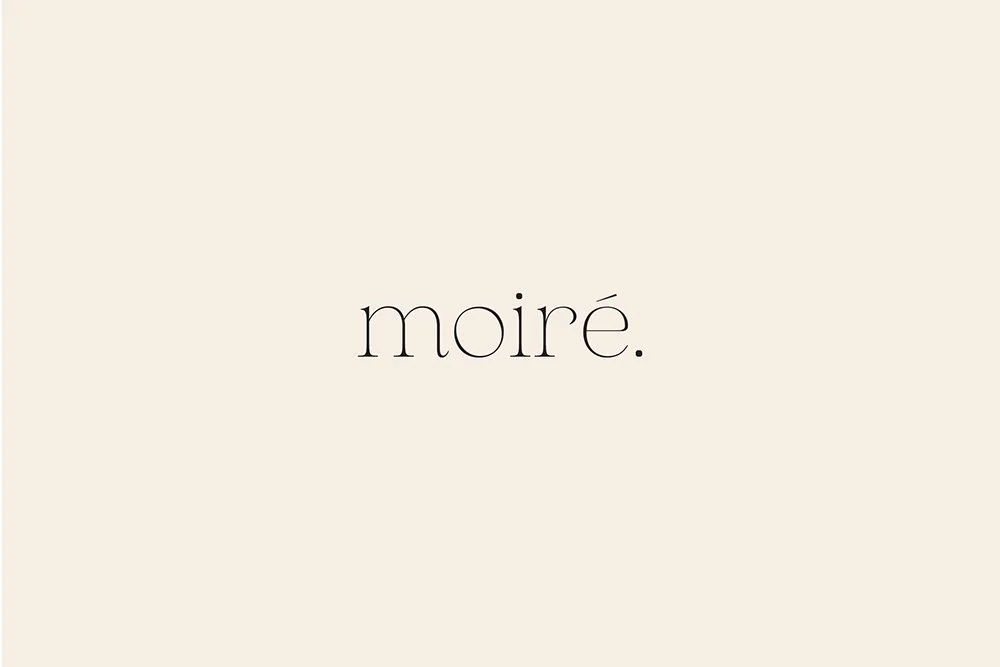
Aurelius - Feminine Chic Serif
Aurelius is a refined and chic serif with delicate curves and subtle contemporary elegance. Specially designed for luxury, elegant projects, Aurelius is perfectly suitable for creating modern, chic designs such as logos, packaging, editorial, and more.
• Europeans languages
Vietnamese
Ligatures
Alternates Stylistic Set